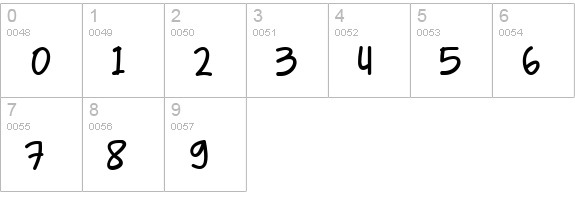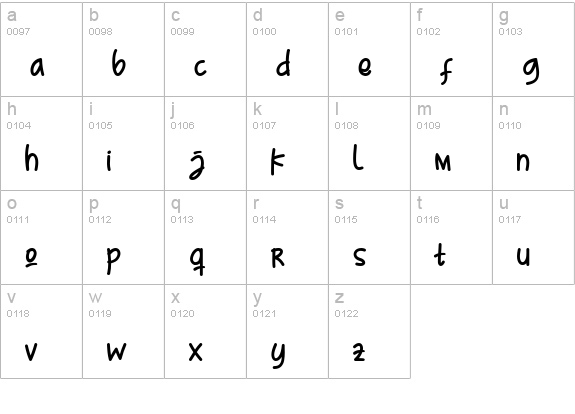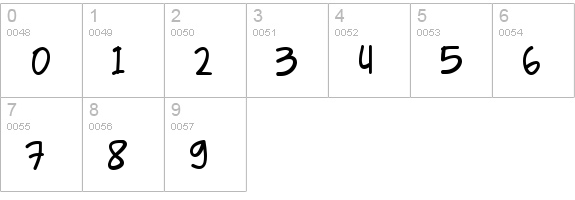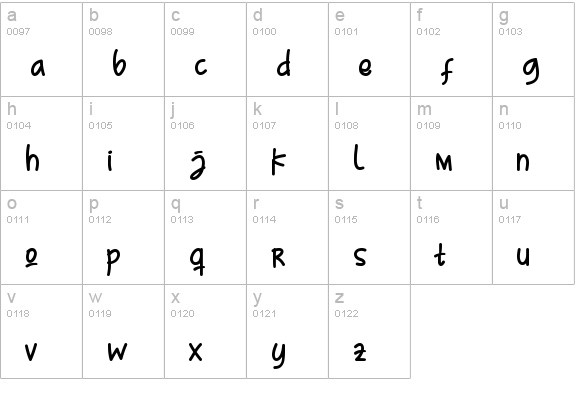
Mr. Kebab - Script Font Font Details
Mr. Kebab - Script Font is a free for personal use font in the Script > Handwritten category, designed by Omotu. It has been downloaded 304 times and is available for Windows, Mac and Linux.
Introducing Mr. Kebab - a stunning script font that exudes elegance and sophistication. With its fluid lines and graceful curves, this font is perfect for adding a touch of charm to your designs. Whether you're working on a wedding invitation, a branding project, or a social media post, Mr. Kebab will make your text stand out.